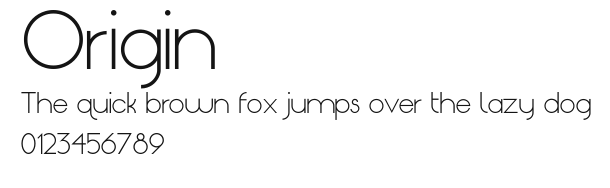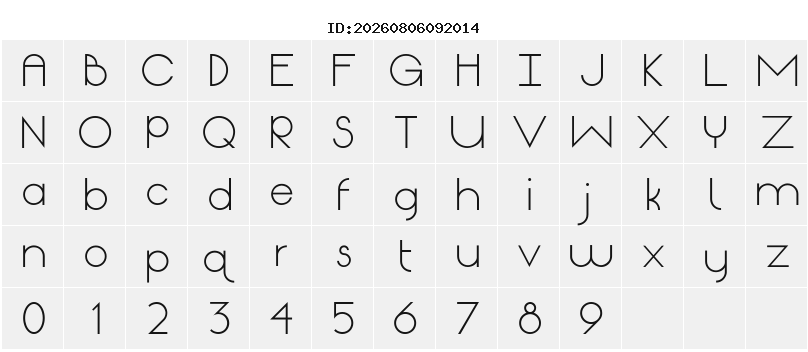
• Font Name: Origin
• Full Font Name: Origin Regular
• Designer: TitanVex
About Origin.ttf
Origin.ttf is a modern, elegant sans-serif font designed for ultimate readability and visual harmony. Perfect for branding, headlines, web design, and print materials.